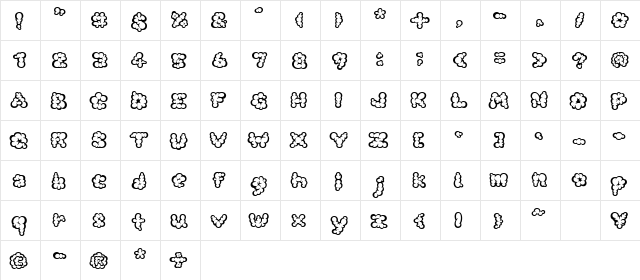
Cloooud AL
Design Context for Cloooud Typeface
Cloooud is a composed and adaptable typeface that performs quietly and consistently across a wide range of design contexts.